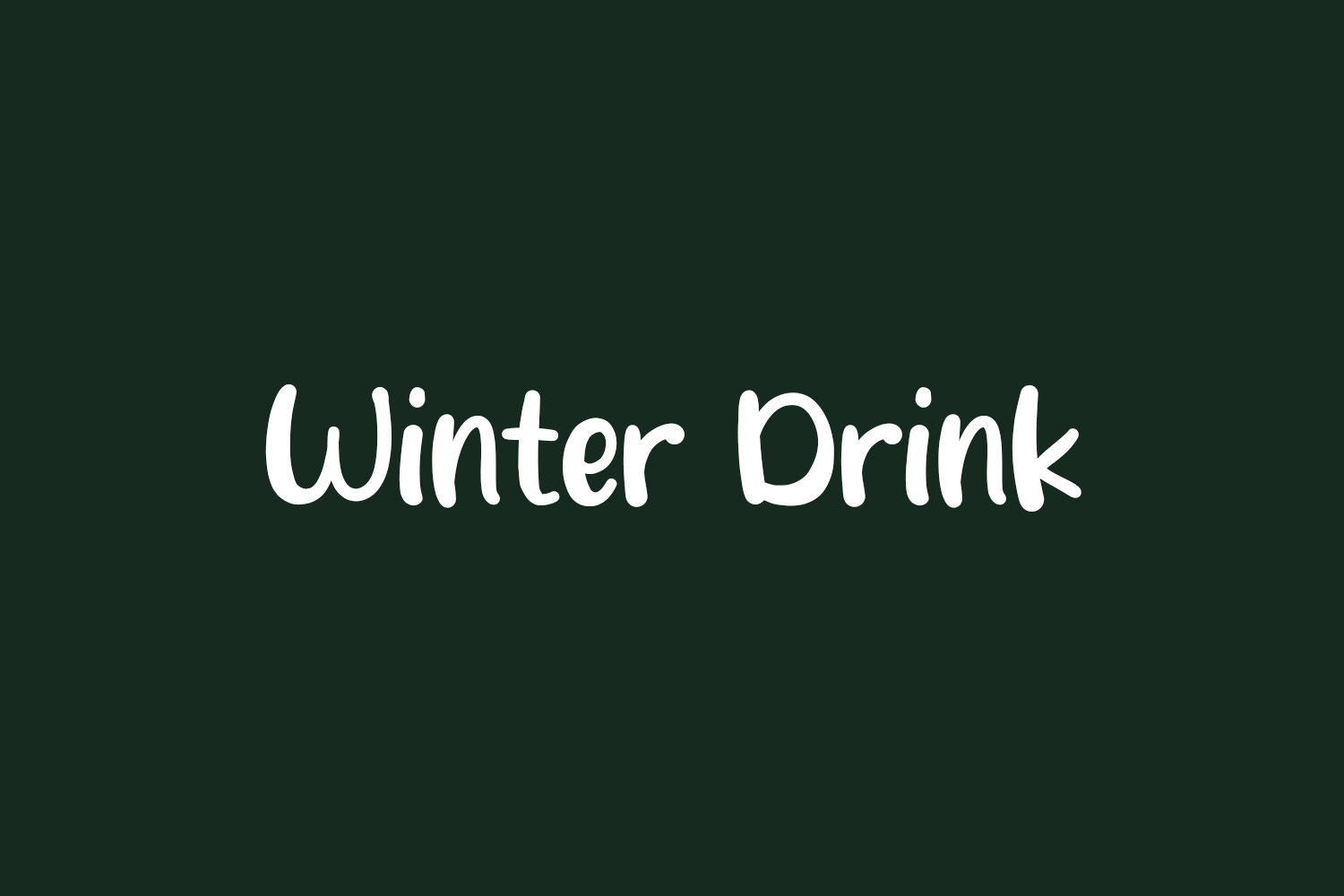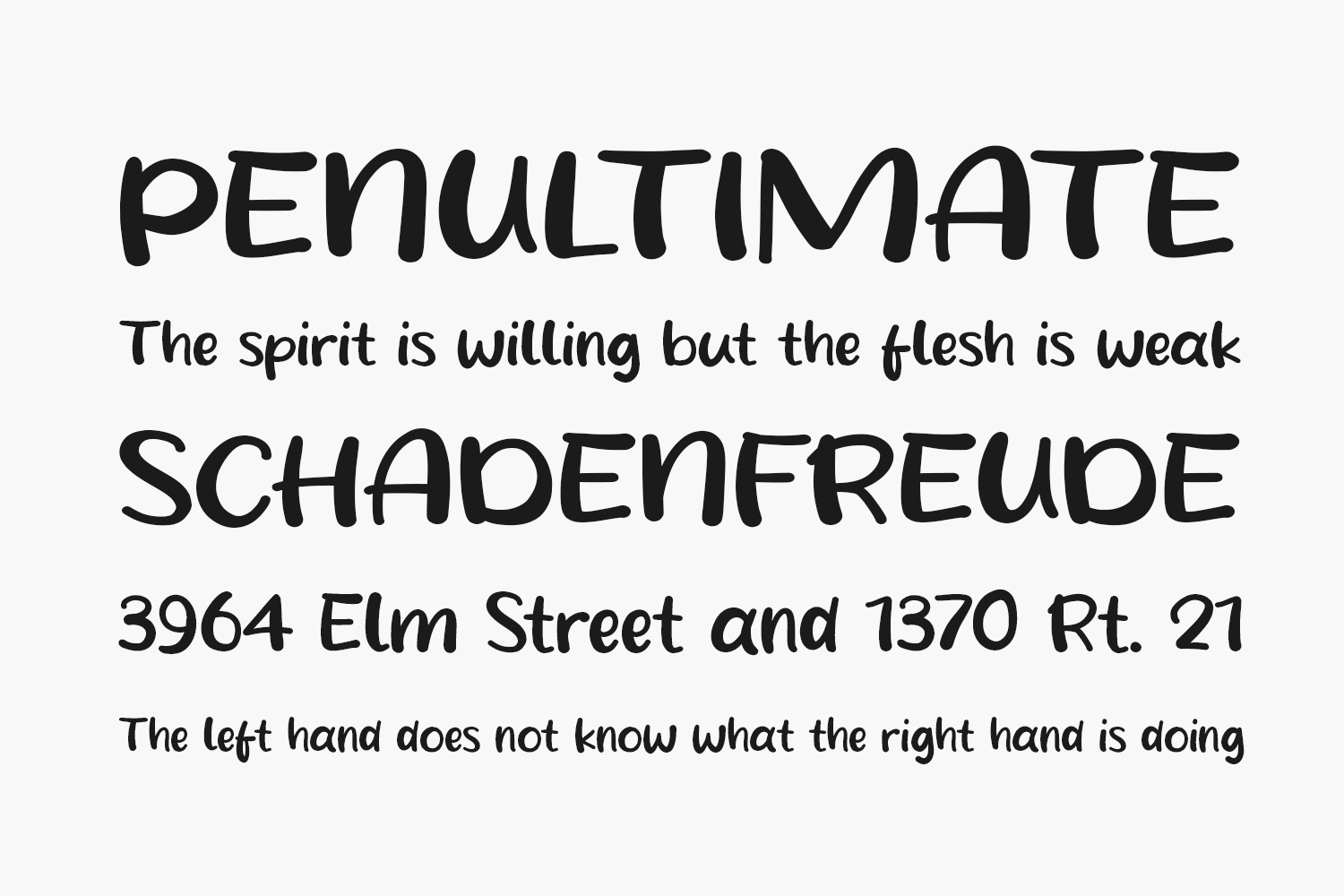
Winter Drink Free Font is a modern and fancy display font perfect for posters, logos, magazines, book covers, banners, and many more. Get this amazing font, and use it to create lovely designs. It can easily be matched to an incredibly large set of projects, so add it to your creative ideas and notice how it makes them stand out. Download the font for free if you need it for personal or commercial use.